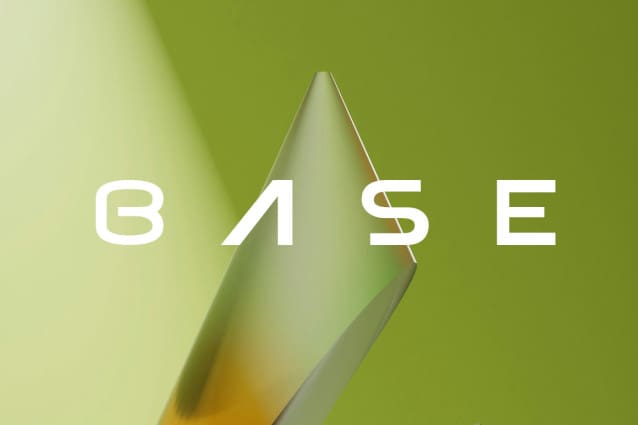
Rint Basic Font
Rint Basic Font a bold statement with our latest sans-serif font. With its clean lines and modern appeal, this font is sure to turn heads and leave a lasting impression. Perfect for headlines, logos, and any design that demands attention. It is both functional and stylish, making it a versatile choice for a wide range of design projects.